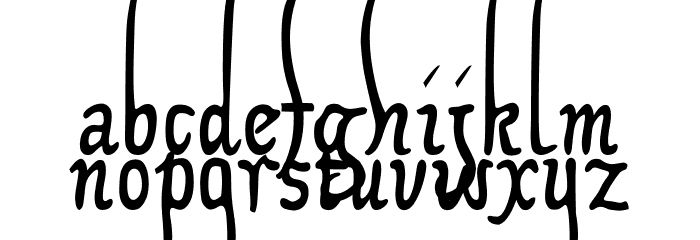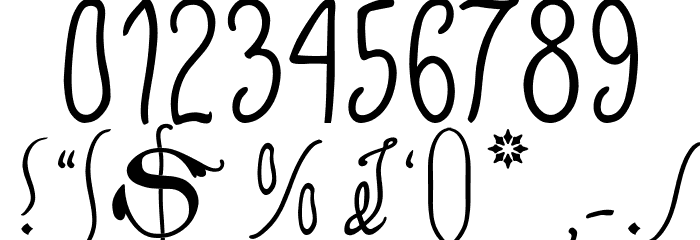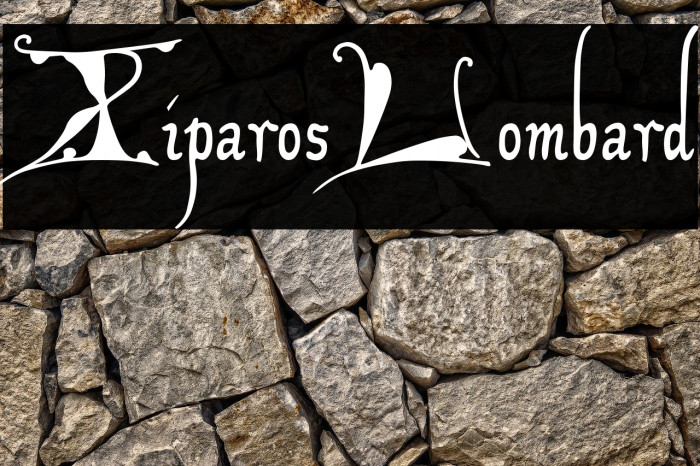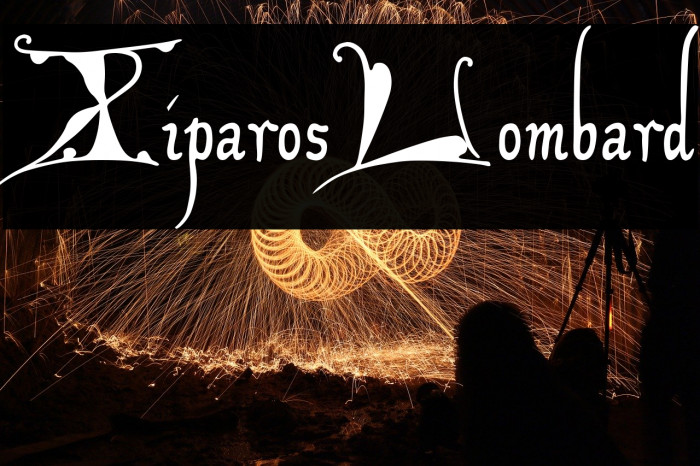
XiparosLombard Font
This font exhibits a highly decorative and whimsical style, characterized by its intricate and playful design elements. Each letter is adorned with unique flourishes and curves, giving it a distinct and artistic appearance. The uppercase letters are particularly elaborate, with swirling extensions and ornate details that create a sense of movement and elegance. The lowercase letters maintain a similar aesthetic, though they are slightly more restrained, providing a balanced contrast. The numerals are tall and slender, echoing the font's overall graceful and elongated form. Special characters are equally stylized, featuring creative embellishments that enhance the font's decorative nature. This font is ideal for projects that require a touch of fantasy and creativity, making it suitable for invitations, posters, and artistic branding.
A whimsical and decorative font with intricate flourishes and artistic details.
- Proposed Projects: Ideal for invitations, posters, artistic branding, and fantasy-themed designs.
- Use Case: Headlines, Artistic branding, Invitations